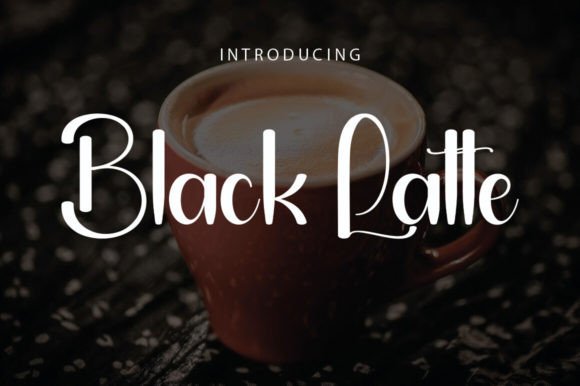
The Delightful Charm of Black Latte Font
Have you ever been in the middle of a design project, and suddenly, you’re stuck on finding the perfect font? I recall a recent experience where I was working on a wedding invitation project, and my client specifically asked for a font that exudes elegance and romance. After hours of scouring through font libraries, I stumbled upon ‘Black Latte’, an elegantly cursive and sweetly handwritten font that instantly captured the essence of the project. In this article, we’ll dive into the delightful charm of ‘Black Latte’ and explore its versatility in various design applications.
A Personal Review of Black Latte Font
What I Love About Black Latte ✨
- ✅ Elegant and refined aesthetic appeal that adds a touch of sophistication to any design
- ✨ Sweetly handwritten and cursive, perfect for projects that require a personal touch
- ✅ Highly versatile and adaptable to various design applications, from invitations to social media graphics
- ✨ Easy to read and understand, making it perfect for body text and headings
- ⚠️ Limited availability of stylistic alternates, which might limit design experimentation
- ⚠️ May not be suitable for very large or very small font sizes, as it can lose its elegance
The Designer Inspiration Behind Black Latte
The story behind Black Latte is one of passion and creativity. The font was designed by a talented typographer who wanted to create a font that captures the essence of elegance and romance. Inspired by traditional calligraphy and handwriting, Black Latte is a modern take on classic typography.
Q: What is the best way to use Black Latte in my designs?
A: Black Latte is a versatile font that can be used in various design applications, from invitations to social media graphics. Experiment with different font sizes, styles, and OpenType features to achieve the desired look.
Q: Is Black Latte suitable for body text?
A: While Black Latte is a beautiful font, it may not be the best choice for body text due to its elegant and refined nature. However, it can be used for short paragraphs or headings.